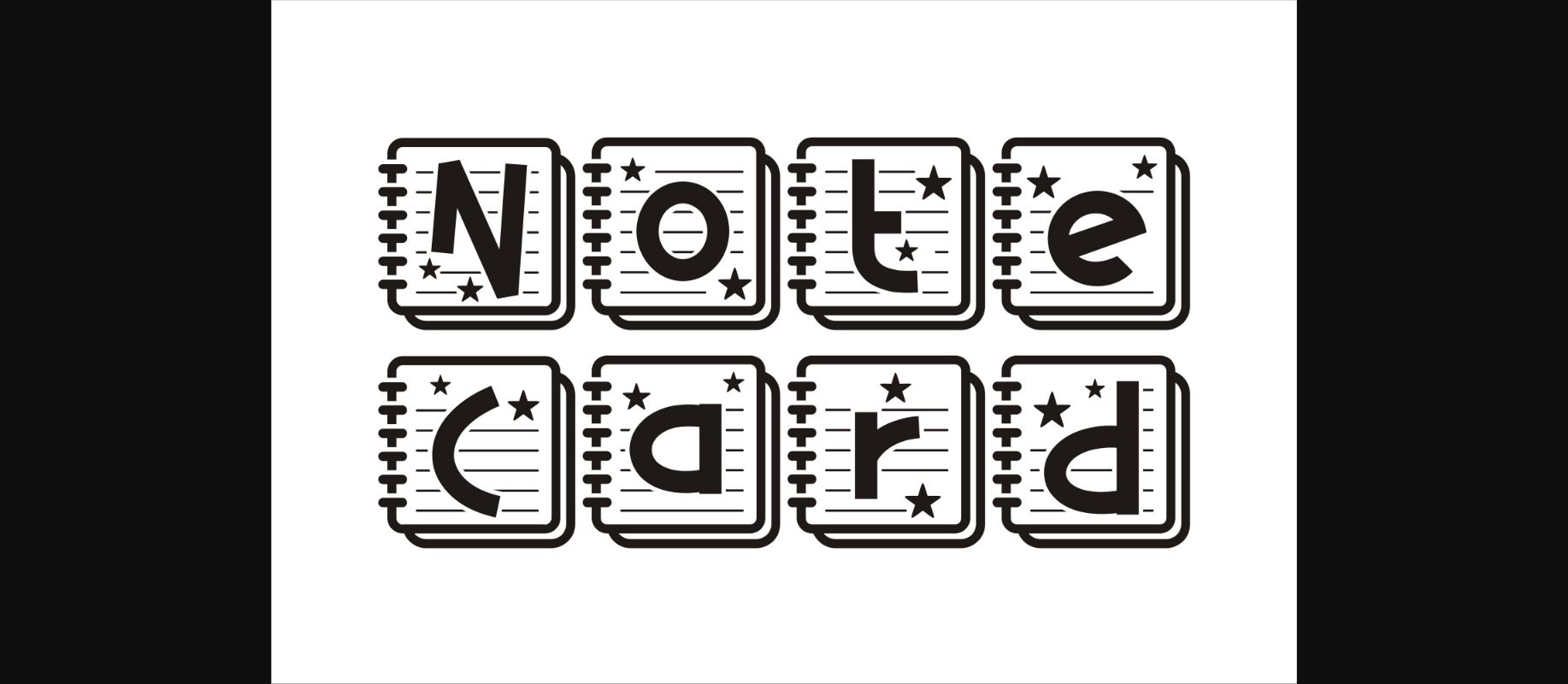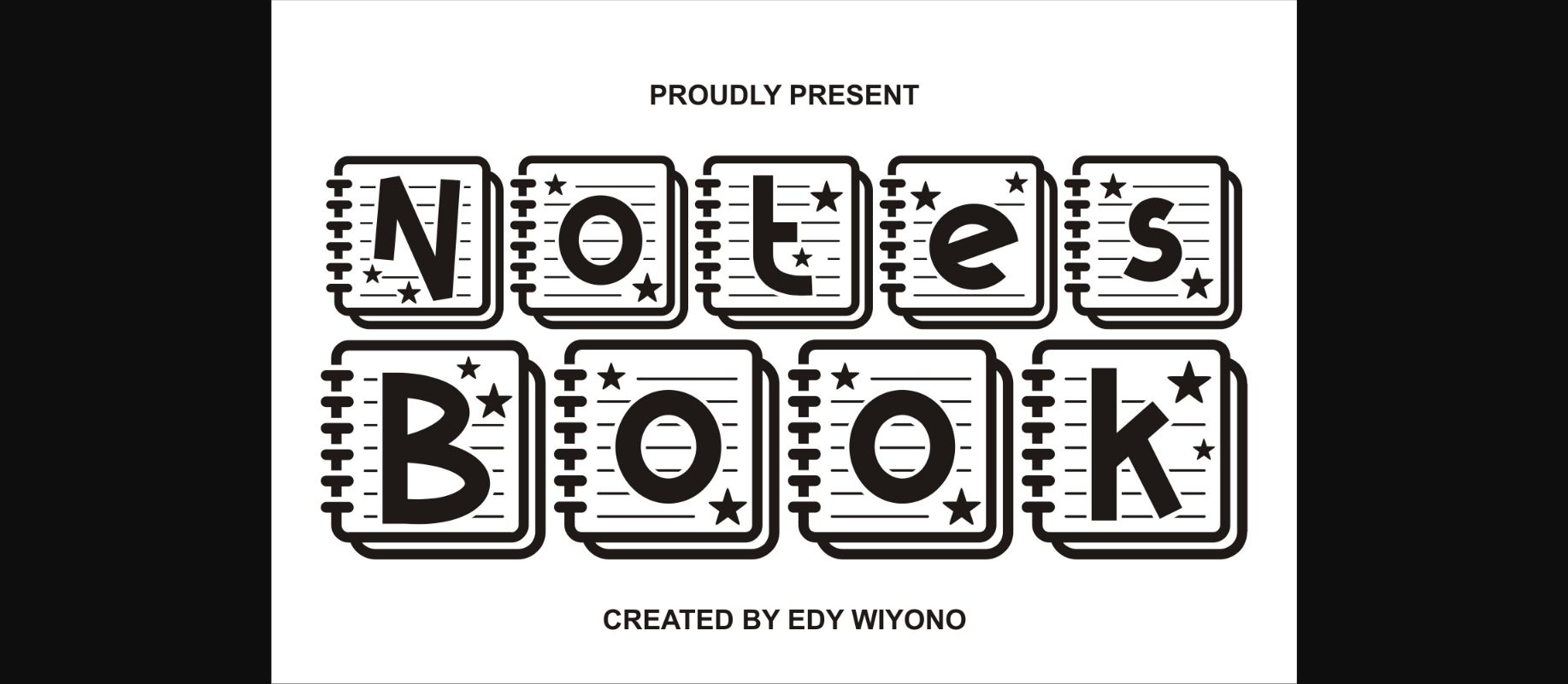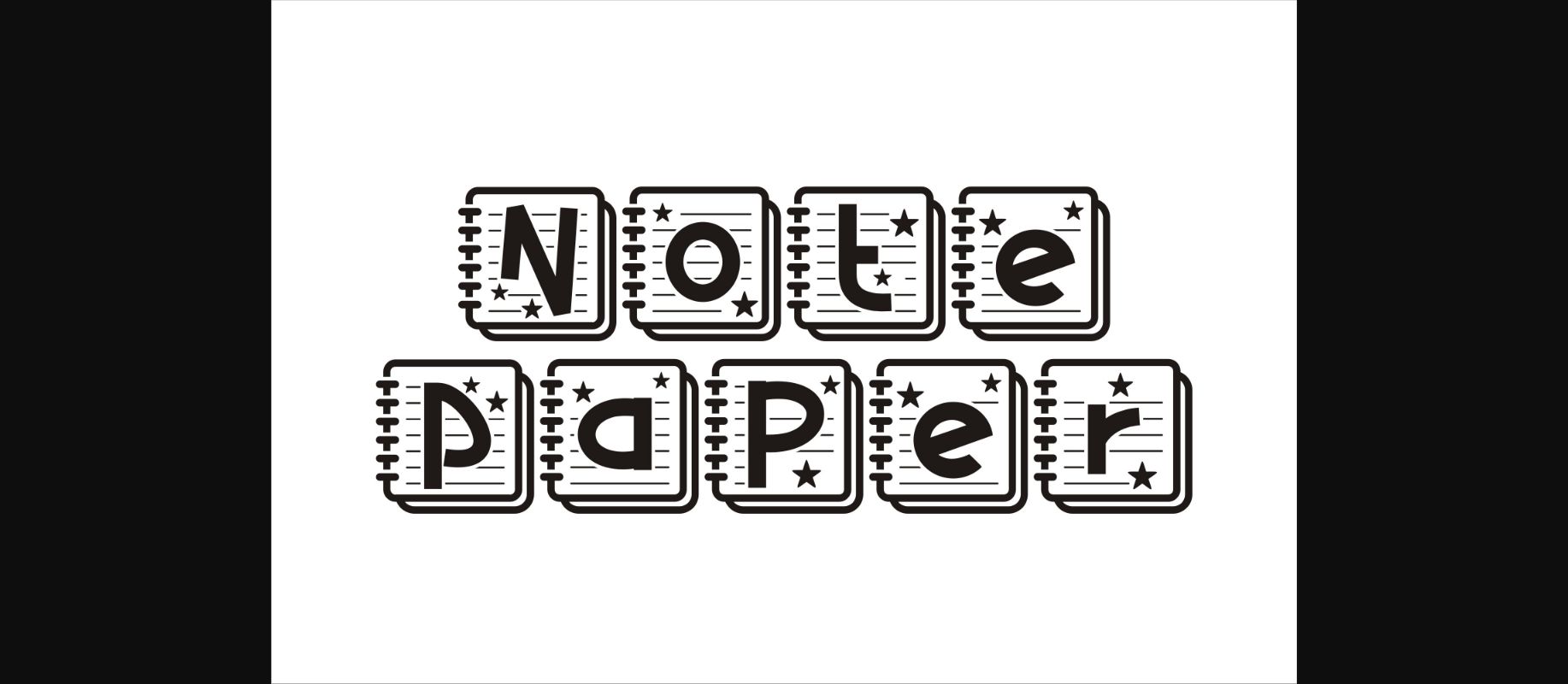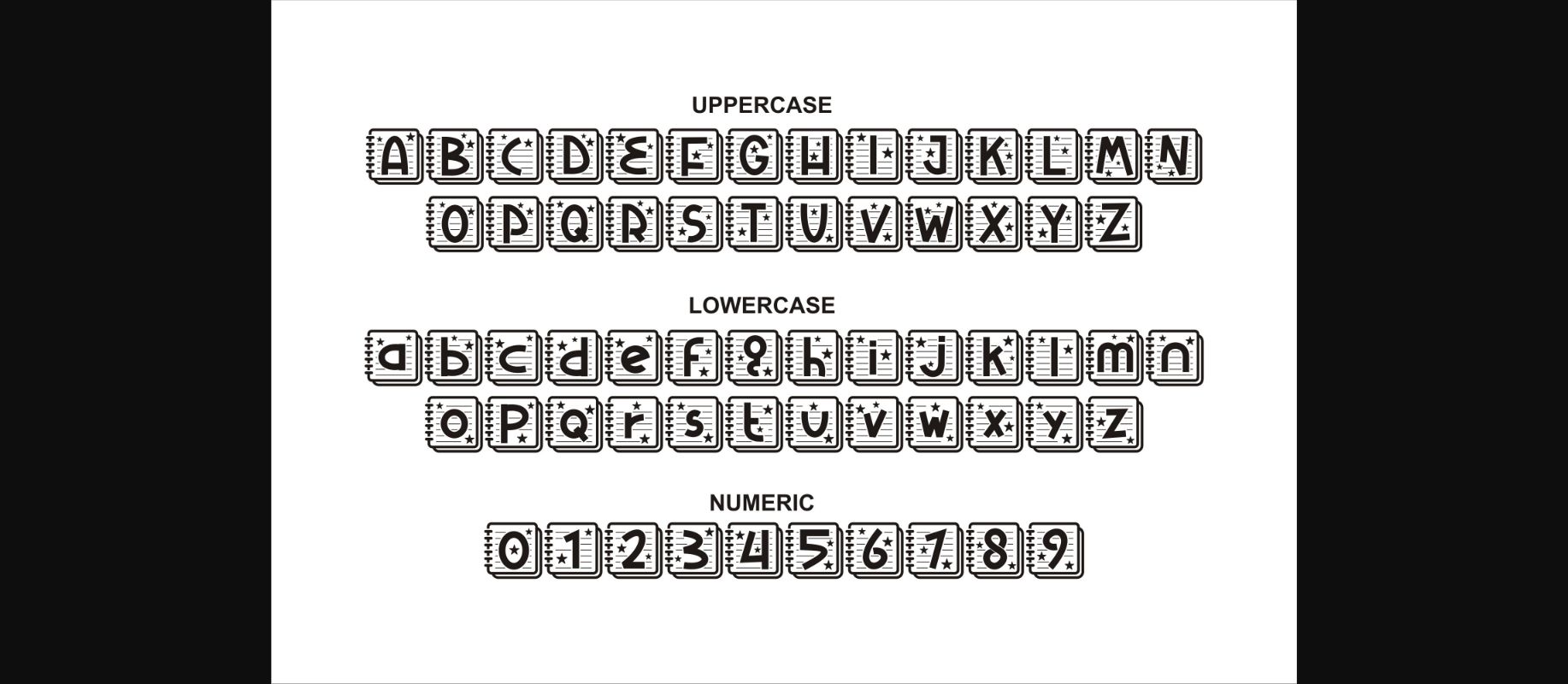
About Notes Book Font
Notes Book is a decorative font with a notebook ornament. This font is very cute and attractive inspired by cartoon characters. You can use it for children’s books, textbooks and funny story books. No matter the topic, Notes Book will be an incredible asset to your fonts’ library, as it has the potential to elevate any creation.